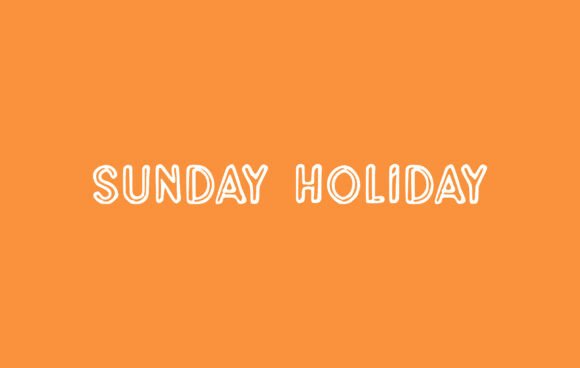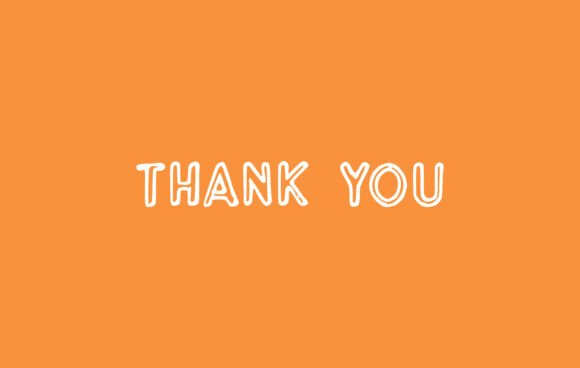
Introducing Comedy Club Font: The Ultimate Handwritten Font for Creative Projects
Are you tired of using the same old fonts for your creative projects? Look no further! Comedy Club font is an authentic handwritten font that adds a romantic touch to any design. With its unique and elegant style, this font is sure to become a true favorite among designers and crafters.
What Makes Comedy Club Font Special?
Comedy Club font is expertly designed to take your creative ideas to the highest level. Its legibility and versatility make it perfect for a wide range of applications, from magazine headlines to social media posts, branding, wedding invitations, cards, and more.
One of the standout features of Comedy Club font is its romantic touch. The font’s handwritten style gives it a personal and intimate feel, making it ideal for designs that require a touch of elegance and sophistication.
Uses for Comedy Club Font
Comedy Club font is incredibly versatile and can be used for a variety of design projects, including:
- Magazine headlines: Add a touch of elegance and sophistication to your magazine headlines with Comedy Club font.
- Social media: Stand out on social media with eye-catching graphics and posts created with Comedy Club font.
- Branding: Use Comedy Club font to create a unique and memorable brand identity.
- Wedding invitations: Add a romantic touch to your wedding invitations with Comedy Club font.
- Cards: Create beautiful and personalized cards for special occasions with Comedy Club font.
Why Choose Comedy Club Font?
There are many reasons why Comedy Club font stands out from other fonts. Here are just a few:
- Unique style: Comedy Club font has a unique and elegant handwritten style that sets it apart from other fonts.
- Legibility: The font is highly legible, making it perfect for both title and body text.
- Versatility: Comedy Club font can be used for a wide range of design projects.
Tips for Using Comedy Club Font
Here are a few tips for getting the most out of Comedy Club font:
- Experiment with different sizes: Comedy Club font looks great in a variety of sizes, from large headlines to smaller body text.
- Pair with other fonts: Try pairing Comedy Club font with other fonts to create a unique and eye-catching design.
- Use for emphasis: Use Comedy Club font to add emphasis to important text, such as headlines or calls to action.
Comedy Club font is an authentic handwritten font with a romantic touch that is sure to take your creative projects to the next level. With its unique style, legibility, and versatility, this font is perfect for designers and crafters looking to add a touch of elegance and sophistication to their designs.